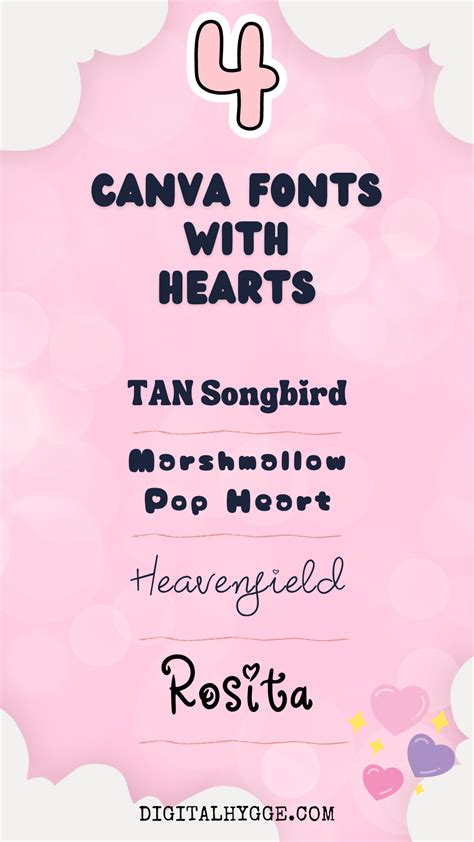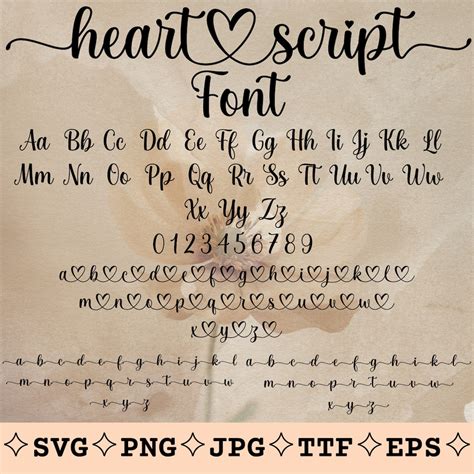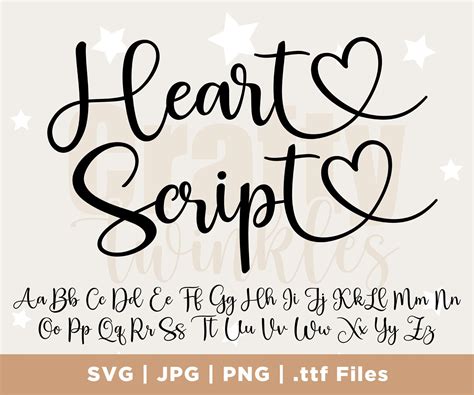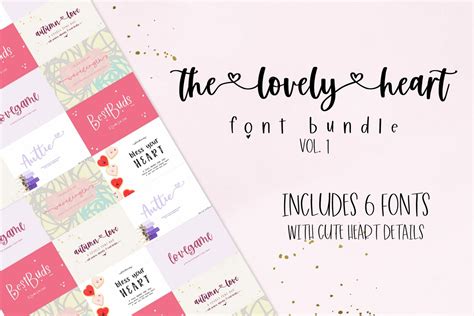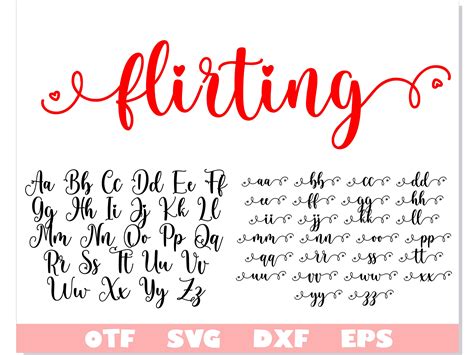
In the vast world of typography, there are countless fonts that cater to various design needs, from sleek and modern to playful and whimsical. Among these, the Font With Hearts stands out as a unique and charming choice, particularly for projects that require a touch of warmth and affection. This font is not just about aesthetics; it's about conveying emotions and creating a connection with the audience. Whether you're designing a greeting card, a social media post, or a branding element, a Font With Hearts can add that special something that makes your design stand out.
What is a Font With Hearts?
A Font With Hearts is a typeface that incorporates heart symbols or heart-shaped elements into its design. These fonts are often used to convey love, affection, and positivity. They are particularly popular in designs aimed at celebrating special occasions like Valentine's Day, anniversaries, or any event that calls for a romantic or sentimental touch. The heart symbols can be integrated into the letters themselves or used as decorative elements around the text.
Types of Fonts With Hearts
There are several types of Fonts With Hearts, each with its unique style and use cases. Here are some of the most common types:
- Serif Fonts With Hearts: These fonts have small decorative strokes at the ends of the main strokes of the letters. The heart symbols are often incorporated into these strokes, giving the font a classic and elegant look.
- Sans-Serif Fonts With Hearts: These fonts do not have the decorative strokes found in serif fonts. The heart symbols are usually integrated into the letterforms themselves, creating a clean and modern look.
- Script Fonts With Hearts: These fonts mimic handwriting and often have a flowing, cursive style. The heart symbols can be used as decorative elements or integrated into the letters, adding a personal and romantic touch.
- Display Fonts With Hearts: These fonts are designed for large sizes and are often used for headlines or logos. The heart symbols can be bold and prominent, making a strong visual impact.
Popular Fonts With Hearts
There are many popular Fonts With Hearts that designers frequently use. Here are a few notable examples:
| Font Name | Style | Use Cases |
|---|---|---|
| Love Story | Script | Wedding invitations, romantic cards, social media posts |
| Heartfelt | Serif | Valentine's Day cards, anniversary greetings, love letters |
| Cupid's Arrow | Sans-Serif | Modern logos, digital invitations, social media graphics |
| Sweetheart | Display | Event banners, promotional materials, large-scale graphics |
How to Use Fonts With Hearts Effectively
Using a Font With Hearts effectively requires a good understanding of design principles and the context in which the font will be used. Here are some tips to help you make the most of these charming fonts:
- Choose the Right Context: Fonts With Hearts are best suited for designs that convey love, affection, or positivity. Use them for romantic occasions, celebrations, or any project that benefits from a warm and inviting tone.
- Pair with Complementary Fonts: To create a balanced design, pair your Font With Hearts with a complementary font. For example, you can use a serif font for body text and a script font with hearts for headlines.
- Use Sparingly: While Fonts With Hearts can add a special touch to your design, using them too much can make your design look cluttered. Use them sparingly and strategically to highlight important elements.
- Consider Color Schemes: The color scheme you choose can enhance the impact of your Font With Hearts. Soft pastels, warm tones, and romantic colors like red, pink, and gold can complement these fonts beautifully.
- Test for Readability: Ensure that your Font With Hearts is readable, especially if you're using it for body text. Some decorative fonts can be difficult to read, so it's important to test them at different sizes and in various contexts.
Designing with Fonts With Hearts
Designing with Fonts With Hearts can be a fun and creative process. Here are some steps to help you get started:
- Identify Your Design Needs: Determine the purpose of your design and the message you want to convey. This will help you choose the right Font With Hearts for your project.
- Select a Font: Browse through available Fonts With Hearts and select one that matches your design needs and aesthetic preferences.
- Create a Mood Board: Gather inspiration and create a mood board that includes color schemes, images, and other design elements that complement your chosen font.
- Design Your Layout: Use your chosen font in your design layout, ensuring that it is balanced and visually appealing. Consider the placement of text, images, and other elements to create a cohesive design.
- Review and Refine: Review your design and make any necessary adjustments. Ensure that the font is readable and that the overall design effectively conveys your message.